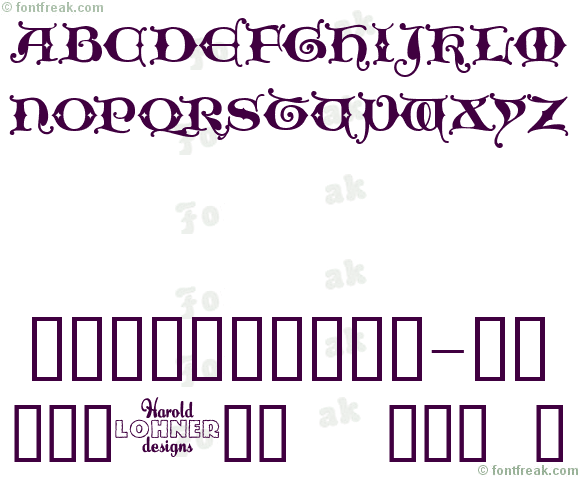
King Xmas Trial
About King Xmas Trial
The King Xmas Trial font by Harold Lohner is a delightful display typeface that embodies a whimsical holiday spirit. This decorative font features a playful, yet elegant design that captures the essence of festive cheer. Its unique letterforms are characterized by soft curves and a balanced stroke weight, creating an inviting appearance. The moderate contrast between thick and thin strokes adds visual interest, while the slightly irregular spacing enhances its handcrafted feel, making it perfect for a variety of creative projects.
This font shines in seasonal contexts, making it an excellent choice for holiday greeting cards, festive event invitations, and cheerful party decorations. Additionally, it can be effectively used for Christmas-themed promotional materials or social media graphics, allowing small business owners to capture the festive spirit in their marketing. Graphic designers will appreciate its versatility, which lends itself to both print and digital applications. Content creators looking to add a touch of charm to their projects will find that King Xmas Trial provides a unique flair that stands out.